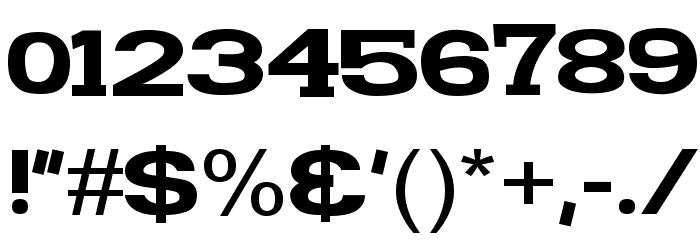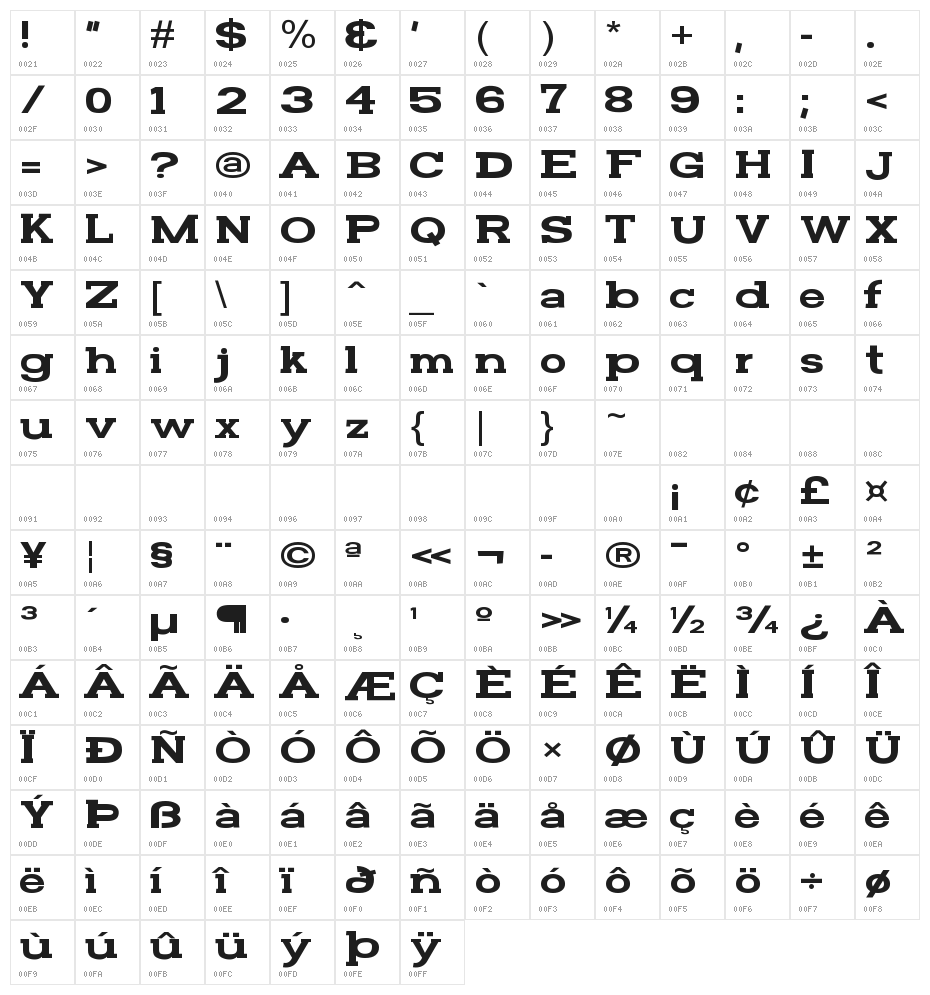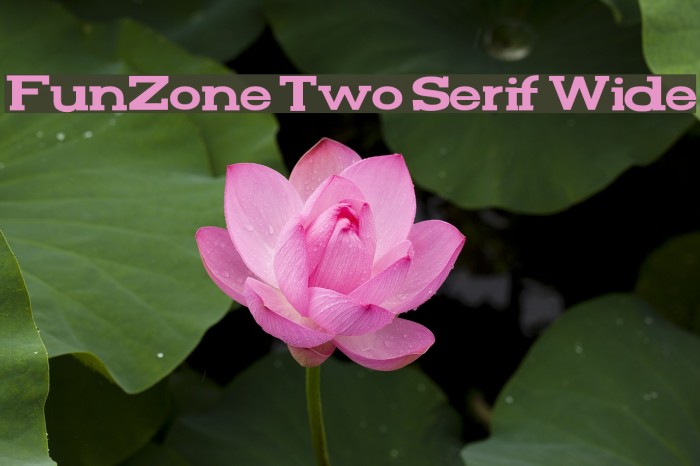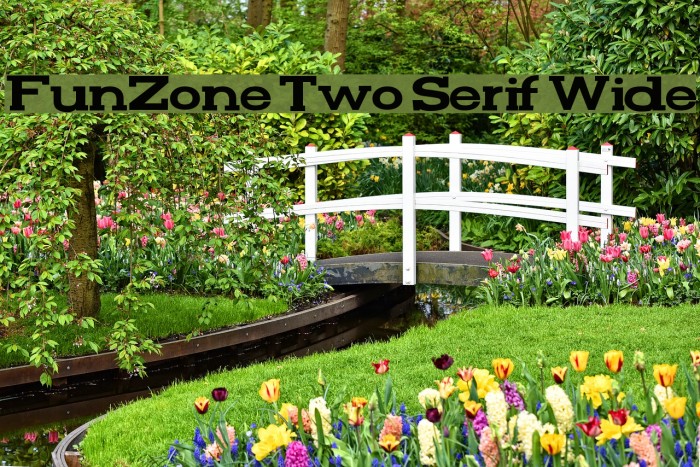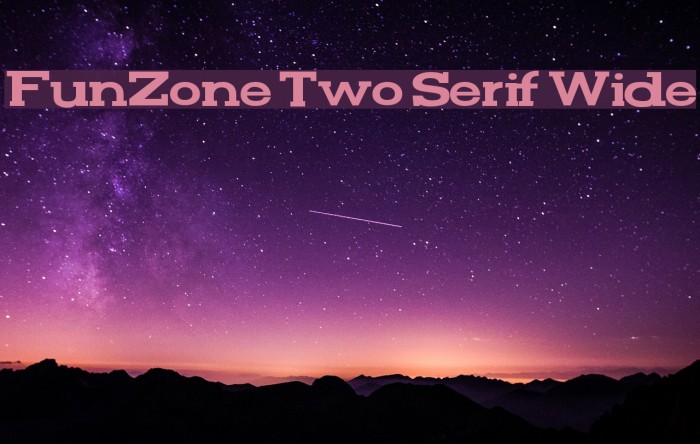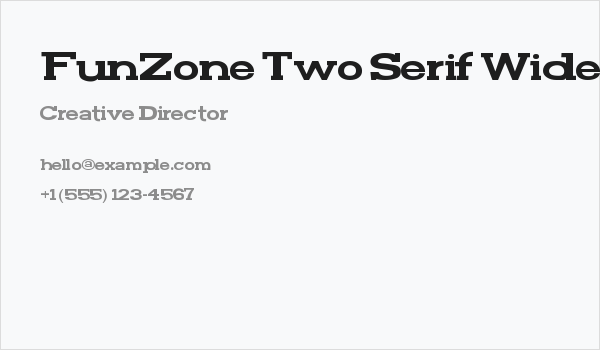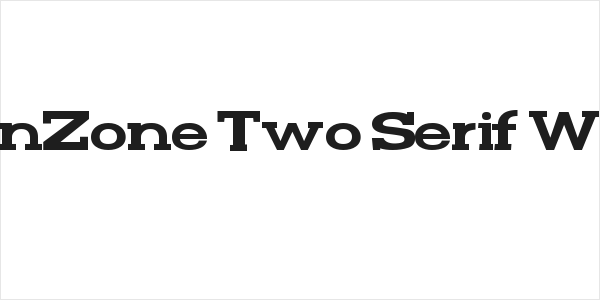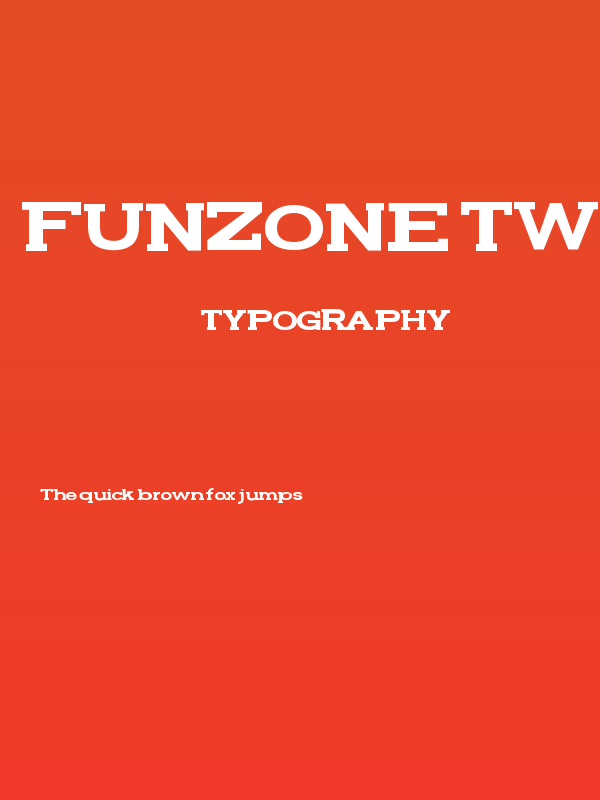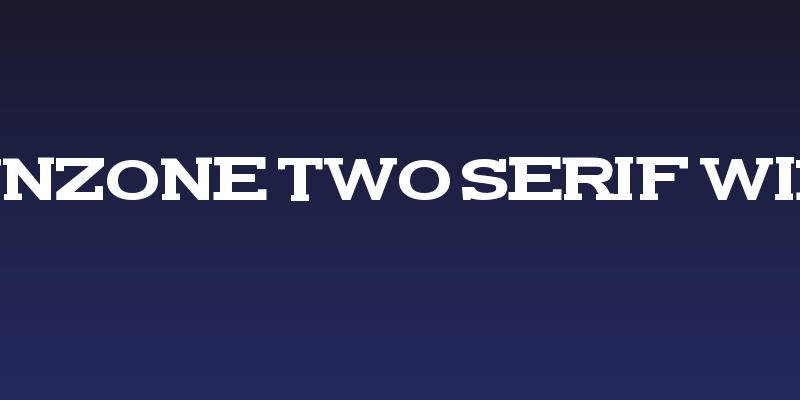
FunZone Two Serif Wide Font
This font features a bold and robust serif style with wide letterforms that convey a sense of strength and stability. The serifs are pronounced, adding a classic touch to the overall modern design. The uppercase letters are particularly striking, with a uniform height and strong presence. The lowercase letters maintain the same boldness, ensuring readability and consistency across different text sizes. Numbers are equally bold, making them stand out for emphasis. Special characters are designed with the same attention to detail, ensuring they integrate seamlessly with the rest of the font. The spacing between characters is normal, allowing for clear legibility without feeling cramped.
| Proposed Projects | Ideal for headlines, posters, branding, and any project requiring a bold, impactful typeface. |